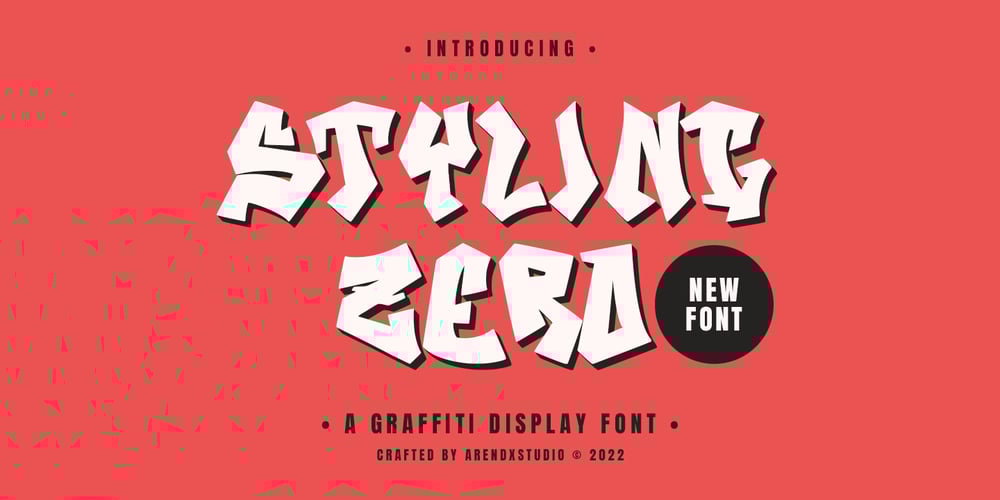
Styling Zero
Styling Zero font
Styling Zero Font Family was designed by Asep Rendi and published by Arendxstudio. Styling Zero contains 1 styles and family package options. Styling Zero – Graffiti Display Font is a free style font that has the characteristics of street art that shows freedom and is filled with unique charactersFeatures : • Character Set A-Z • Numerals & Punctuations (OpenType Standard) • Accents (Multilingual characters) • Ligature • Alternate